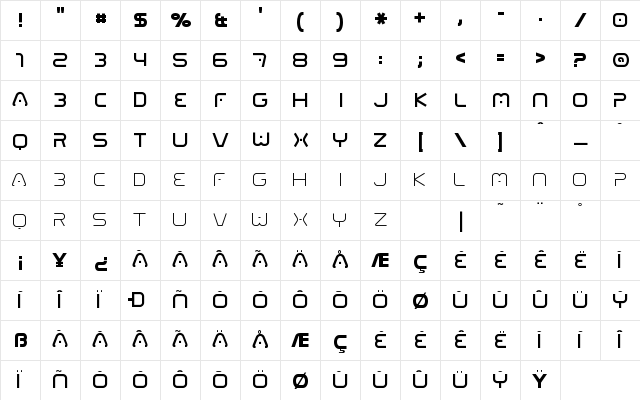
01 Digitall Regular
Designer: David Chung
Design Context for 01 Digitall
01 Digitall has a distinctly futuristic character, with geometric precision and clean angles that feel at home in technology, gaming, and sci-fi contexts.
Pro Tip: Try 01 Digitall with generous letter-spacing in UI labels and navigation - the geometric forms benefit from room to breathe.